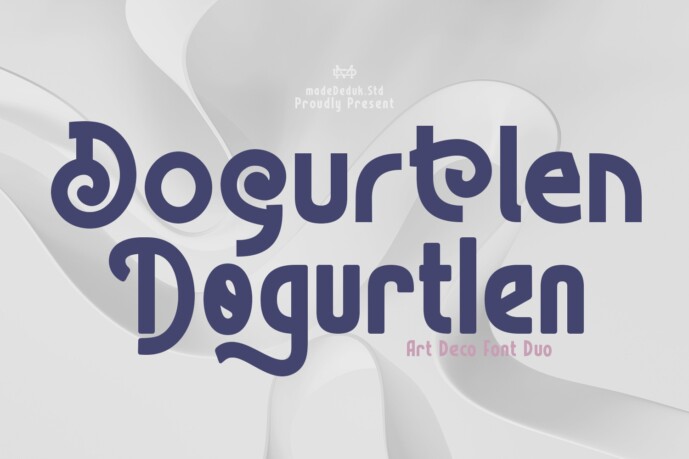
Dogurtlen Art Deco Font
Dogurtlen is a duo of art deco fonts with a unique, luxurious and elegant look. Have different widths with a curly alternative and a ligature character to help you create variations that fit your creative needs, so you can combine them to get the perfect result for each of your design projects. This font has special offers suitable for classic themed projects, ready to be used on a magazine, brand title, book cover, logo, packaging product and any project design
• Uppercase and lowercase
• Number and symbol
• International Glyphs
• Alternative
• Ligation